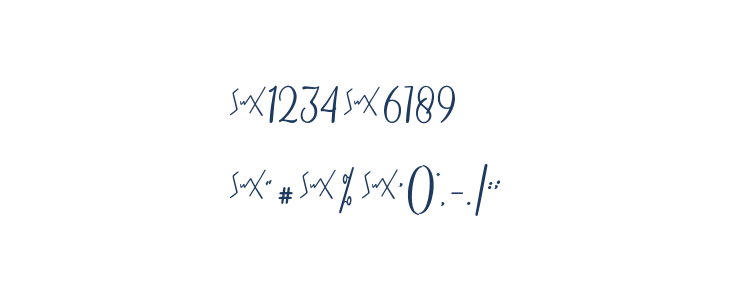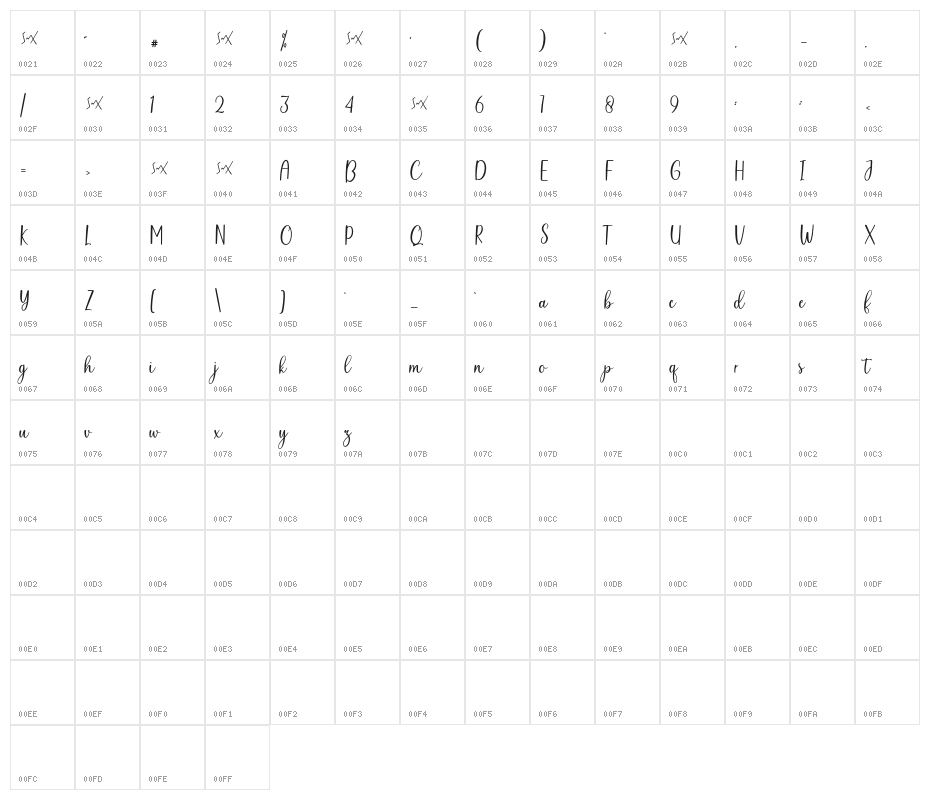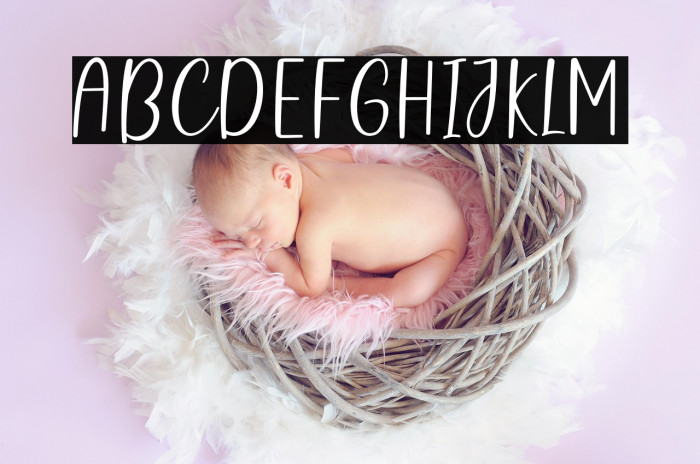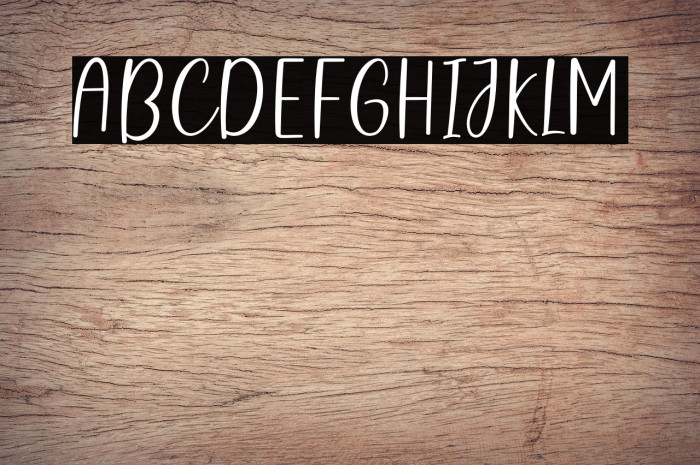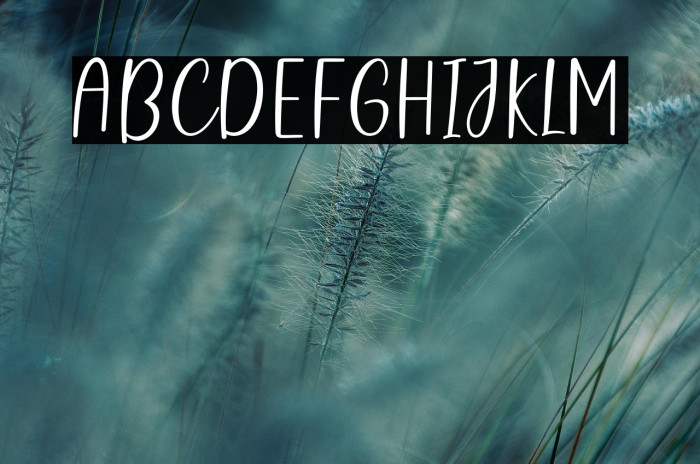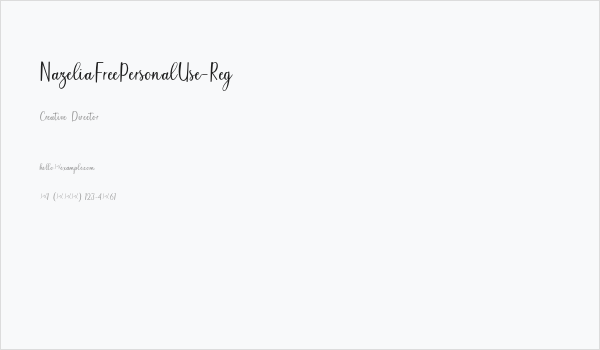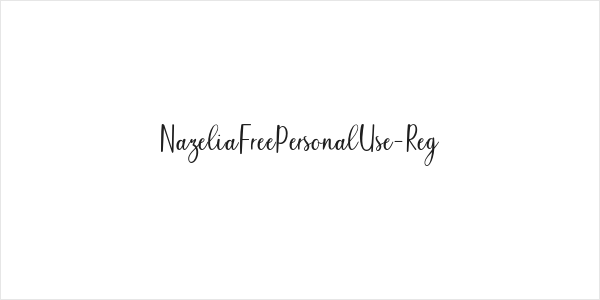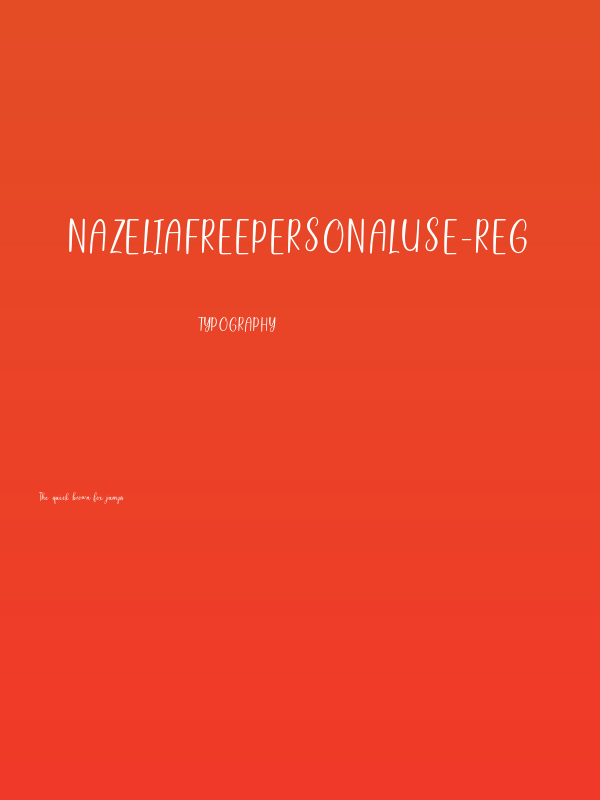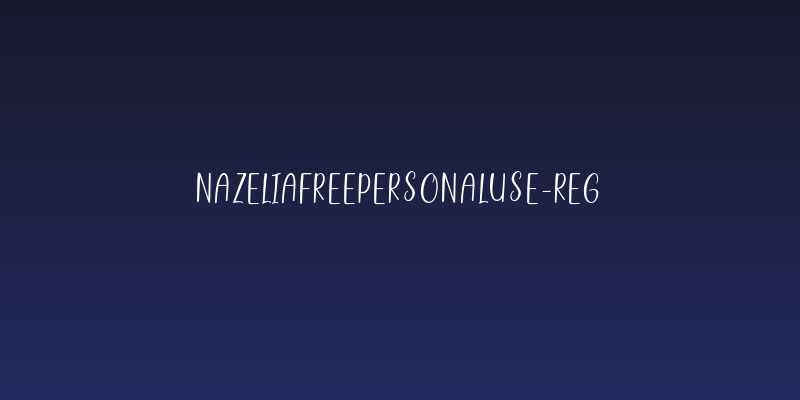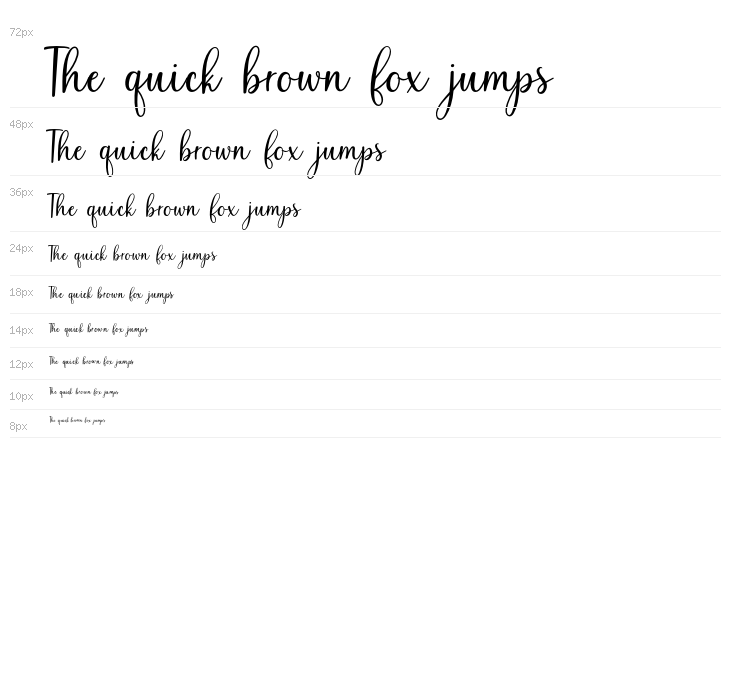
NazeliaFreePersonalUse-Reg Font
NazeliaFreePersonalUse-Reg Description
This font features a playful and elegant script style with a handwritten touch. The uppercase letters are tall and slightly narrow, giving a modern yet approachable feel. The lowercase letters are more fluid and connected, adding a sense of movement and grace. The numbers maintain the same playful style, ensuring consistency across all characters. Special characters are designed with a similar flair, making them suitable for creative and decorative uses. The overall design is versatile, suitable for both casual and formal contexts, and can add a personal touch to any project.